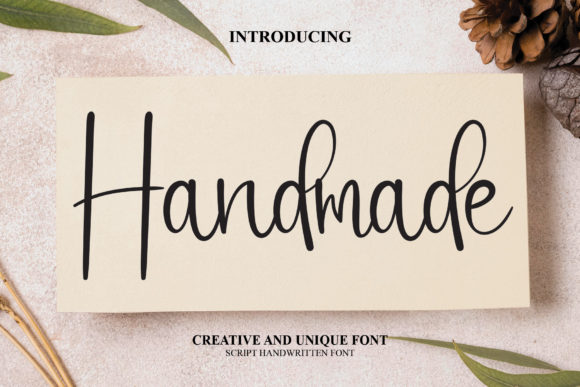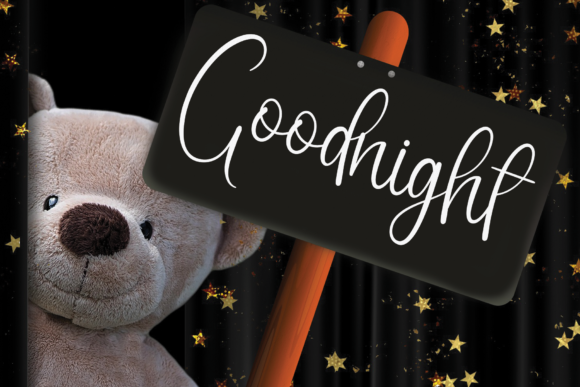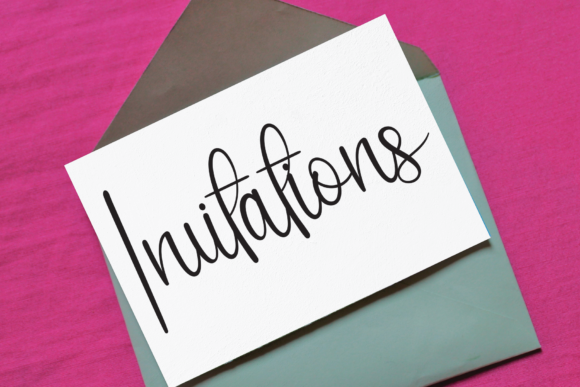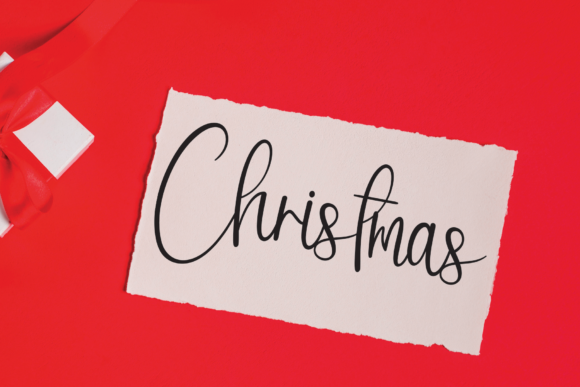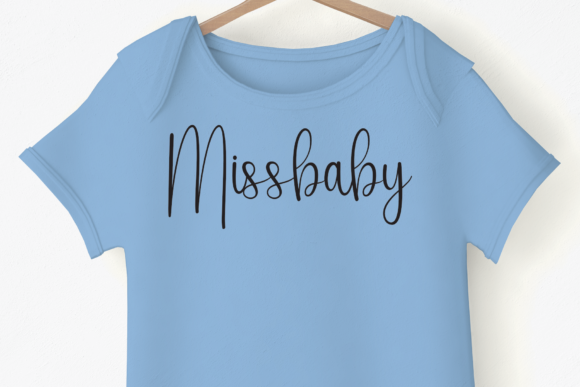
Handmade is a captivating handwritten font renowned for its beauty and flowing elegance. Its versatility makes it an ideal choice for a diverse array of creative projects, including wall hangings, wedding invitations, social media post logos, advertising materials, product packaging, product design, labels, photography, watermarks, invitations, stationery, and any project that demands impressive typography.
With its graceful strokes and seamless curves, Handmade adds a touch of sophistication to every design it graces. Whether you’re creating a rustic wall hanging or designing a modern product label, this font enhances the visual appeal of your project and captures the attention of your audience.
The versatility of Handmade extends to branding and logo design, where its handwritten charm brings a personalized touch to your brand identity. Whether you’re a small business or a large corporation, this font helps you create a distinct and memorable brand image that resonates with your target audience.
Beyond its aesthetic appeal, Handmade is also highly functional, ensuring that your message is conveyed clearly across various mediums, from print to digital platforms.
In summary, Handmade is more than just a font—it’s a versatile tool that empowers designers to elevate their projects with impressive typography. Whether you’re a seasoned professional or a novice enthusiast, this font offers endless possibilities for creativity and expression.